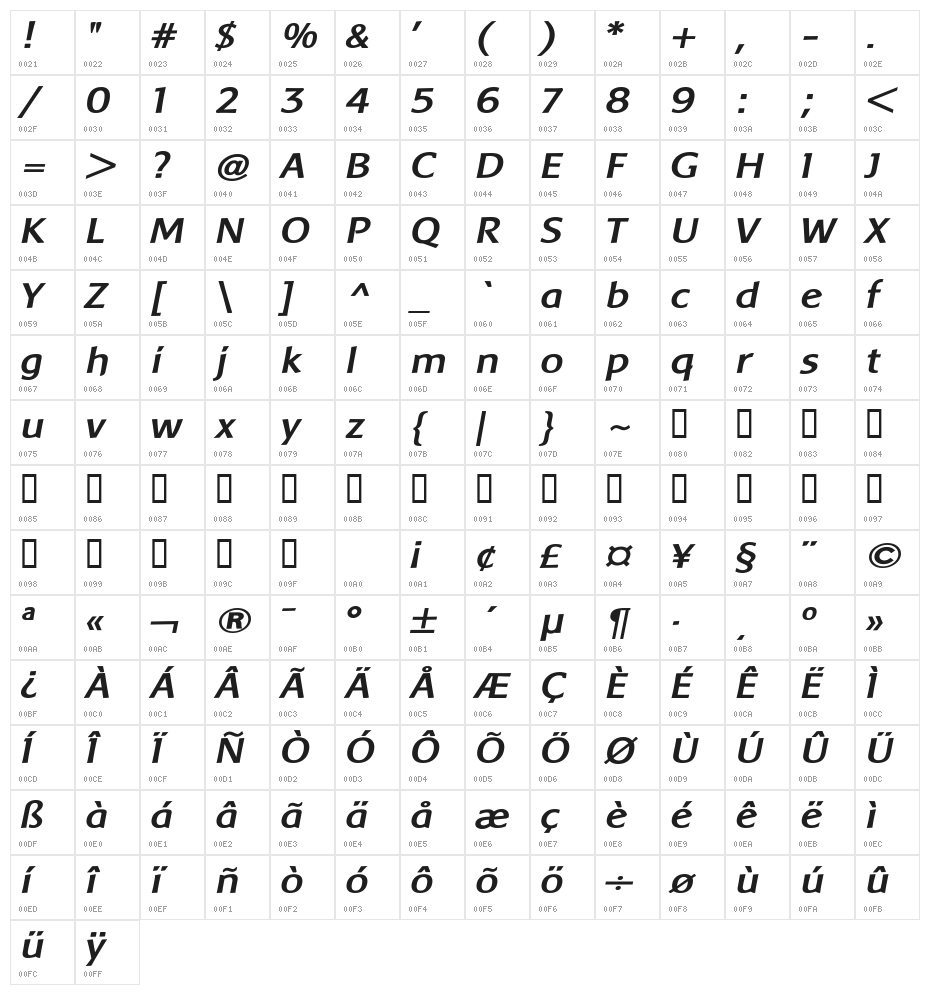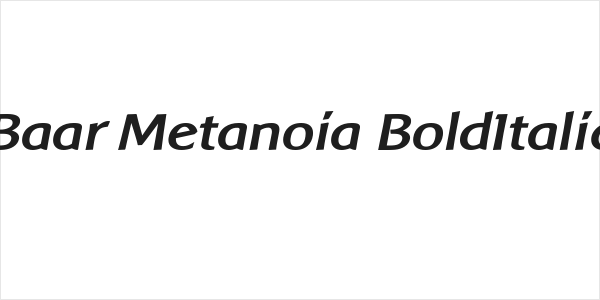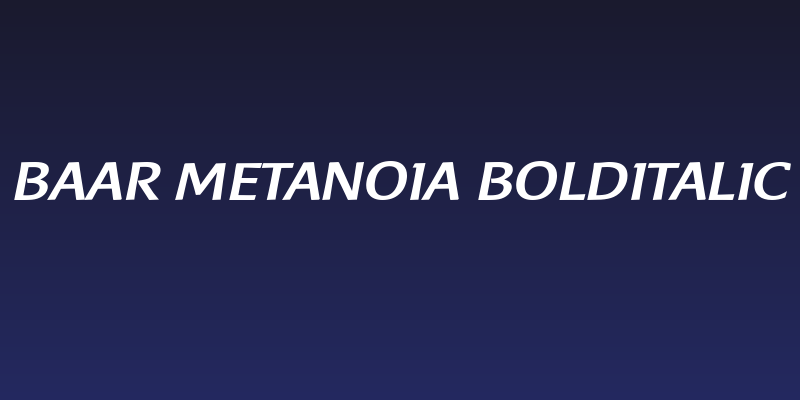
Baar Metanoia BoldItalic Font
Baar Metanoia BoldItalic Description
This font exhibits a bold and italicized style, characterized by its dynamic and forward-leaning posture. The letters are well-defined with a consistent stroke width, providing a sense of strength and assertiveness. The uppercase letters are slightly taller than average, enhancing their prominence, while the lowercase letters maintain a harmonious balance with a slight slant. The numerals are clear and legible, matching the overall boldness of the typeface. Special characters are distinct and integrate seamlessly with the alphabetic characters, making it versatile for various applications.
| Proposed Projects | Ideal for branding, advertising, and headlines where a strong and modern impression is desired. |